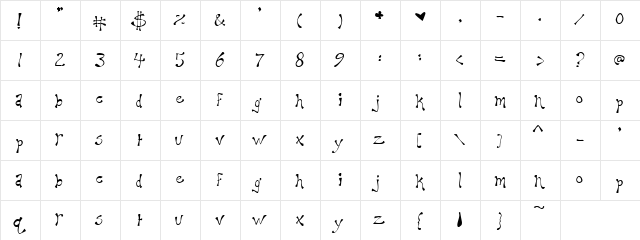
Malayali Regular
Design Context for Malayali Typeface
Malayali is a composed and adaptable typeface that performs quietly and consistently across a wide range of design contexts.